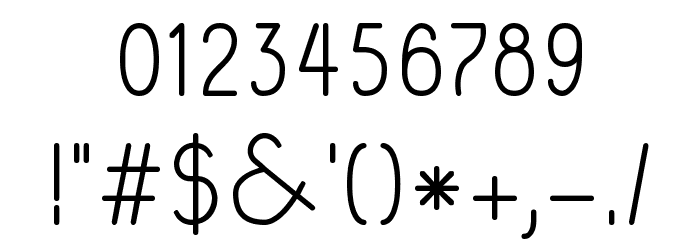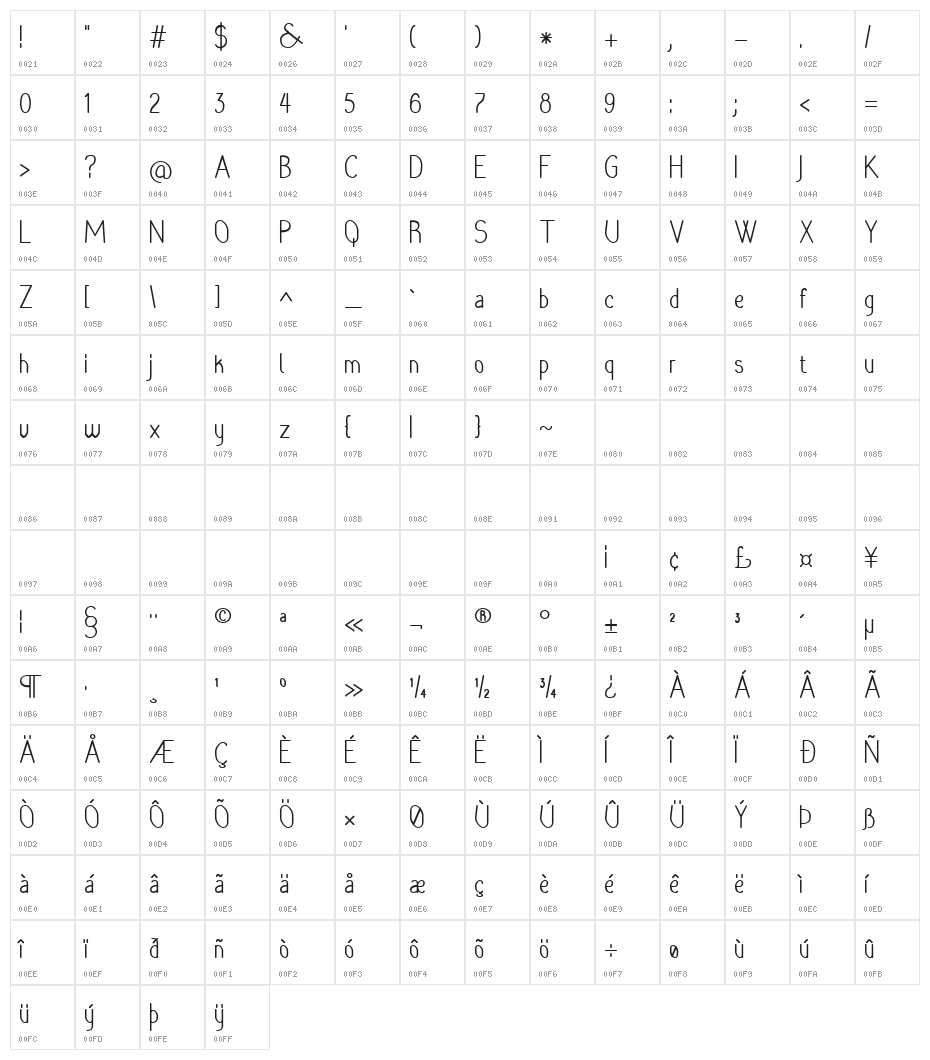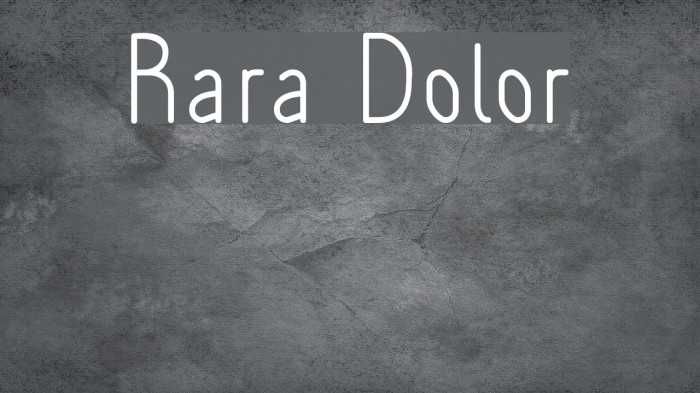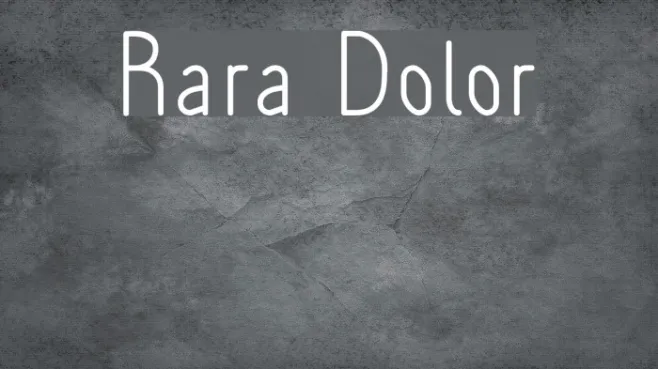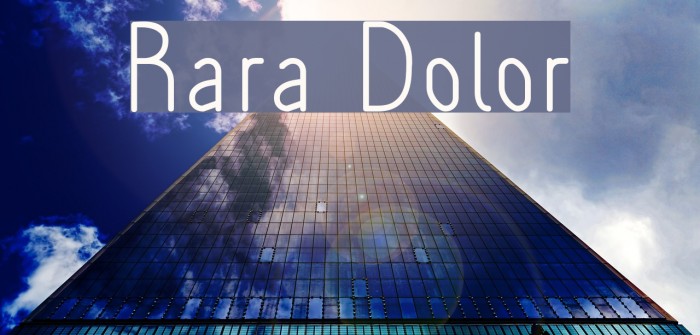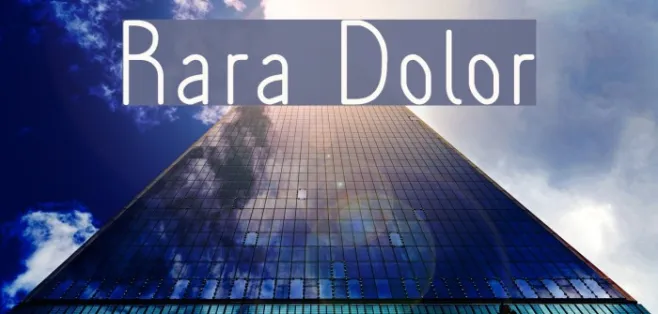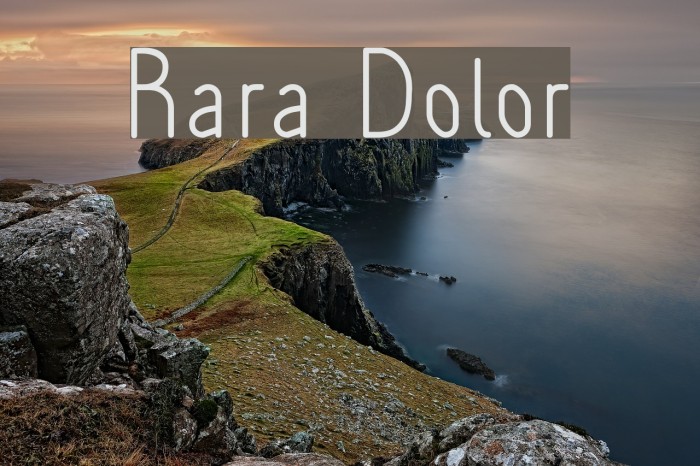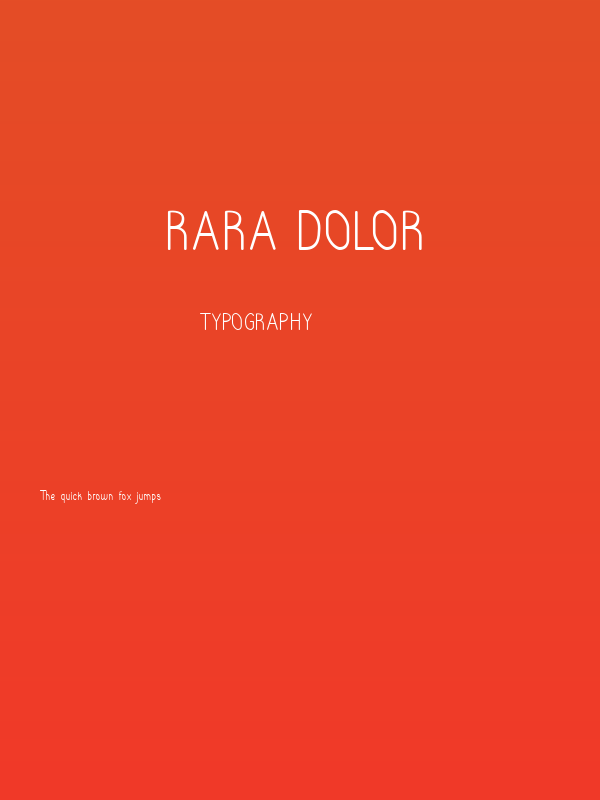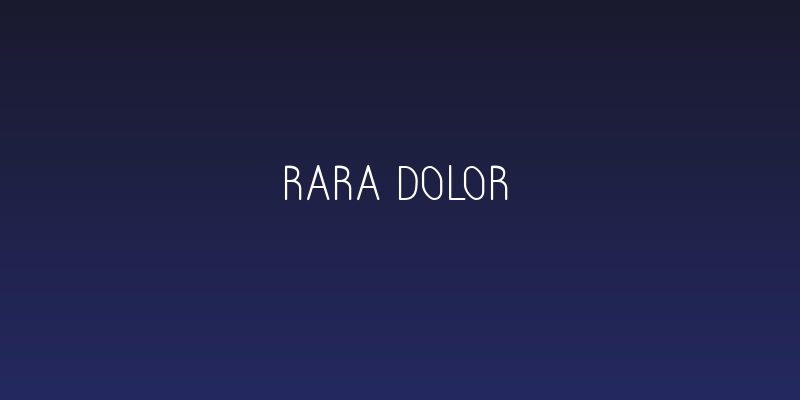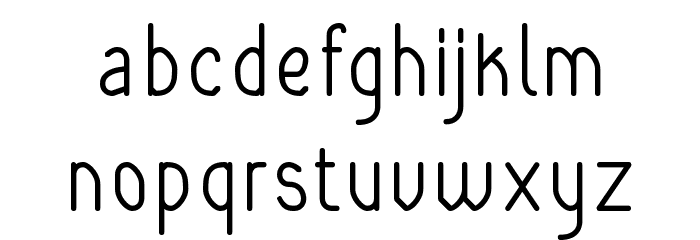
Rara Dolor Font
Rara Dolor Description
This font features a clean and modern sans-serif design with a minimalist aesthetic. The characters are evenly spaced with a consistent stroke width, giving it a uniform appearance. The uppercase and lowercase letters are well-proportioned, and the numerals are clear and easy to read. The special characters are designed to match the overall style, maintaining the simplicity and elegance of the font. This font is versatile and can be used in various design contexts, offering a professional and contemporary look.